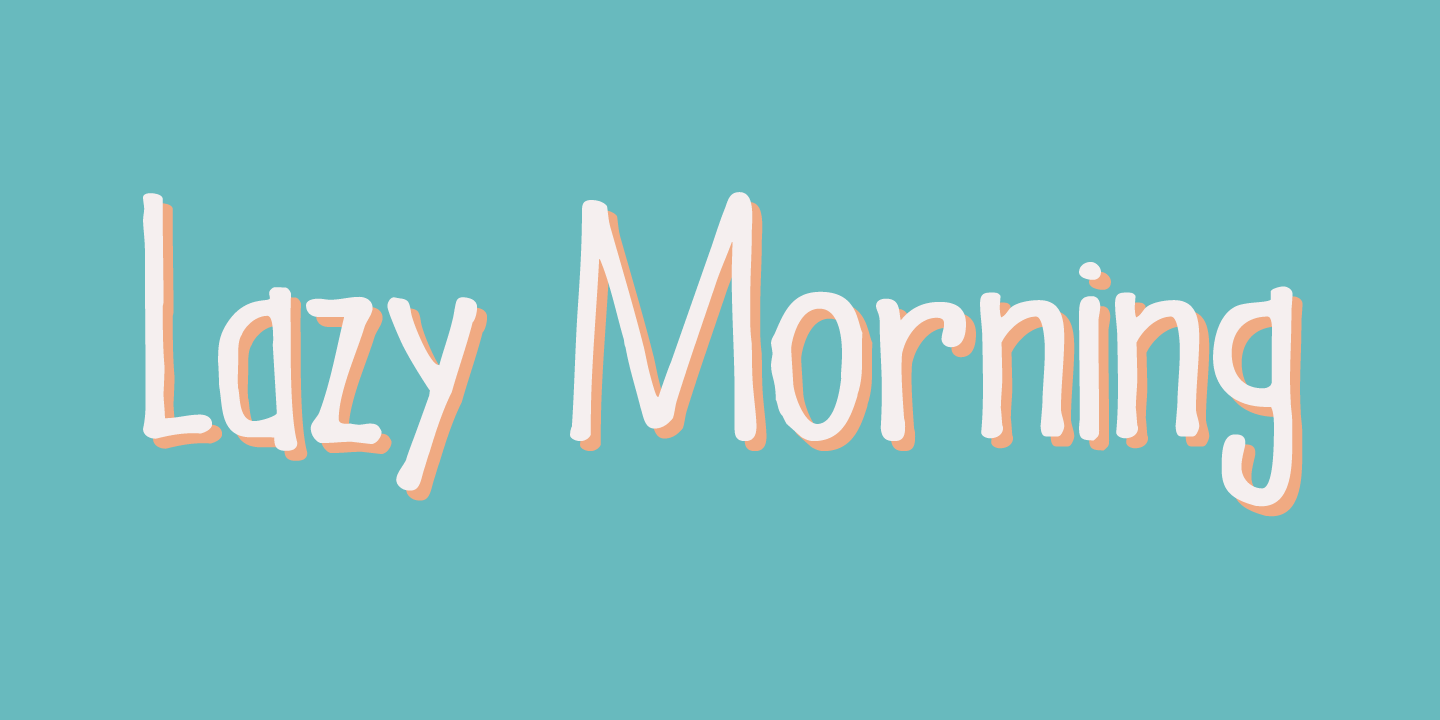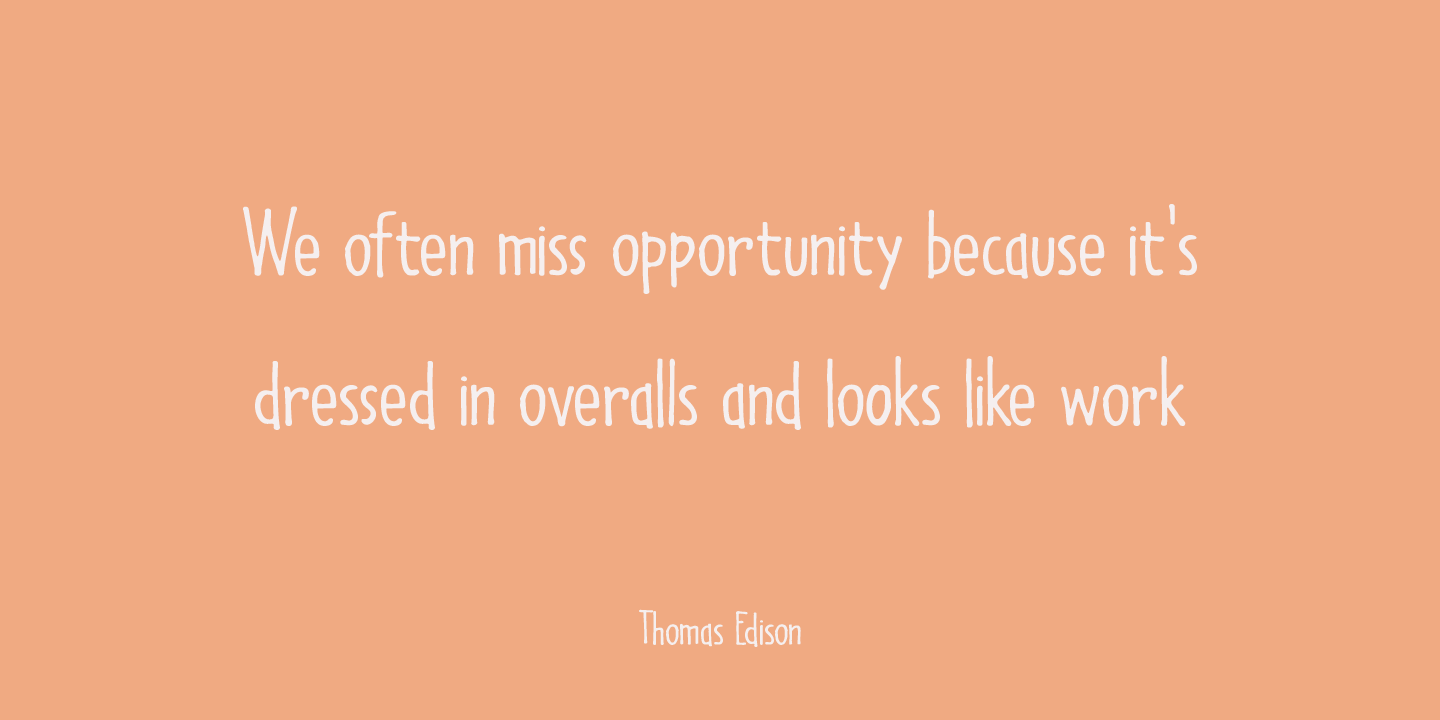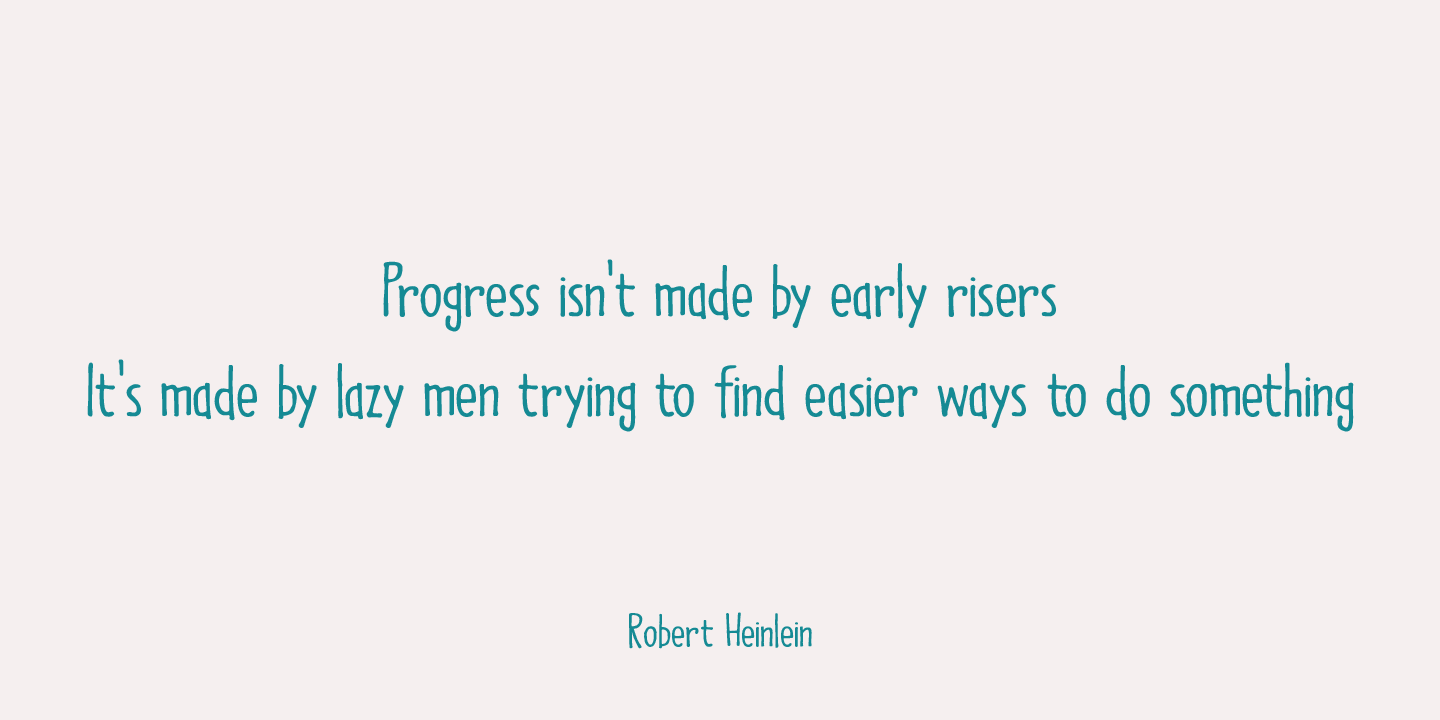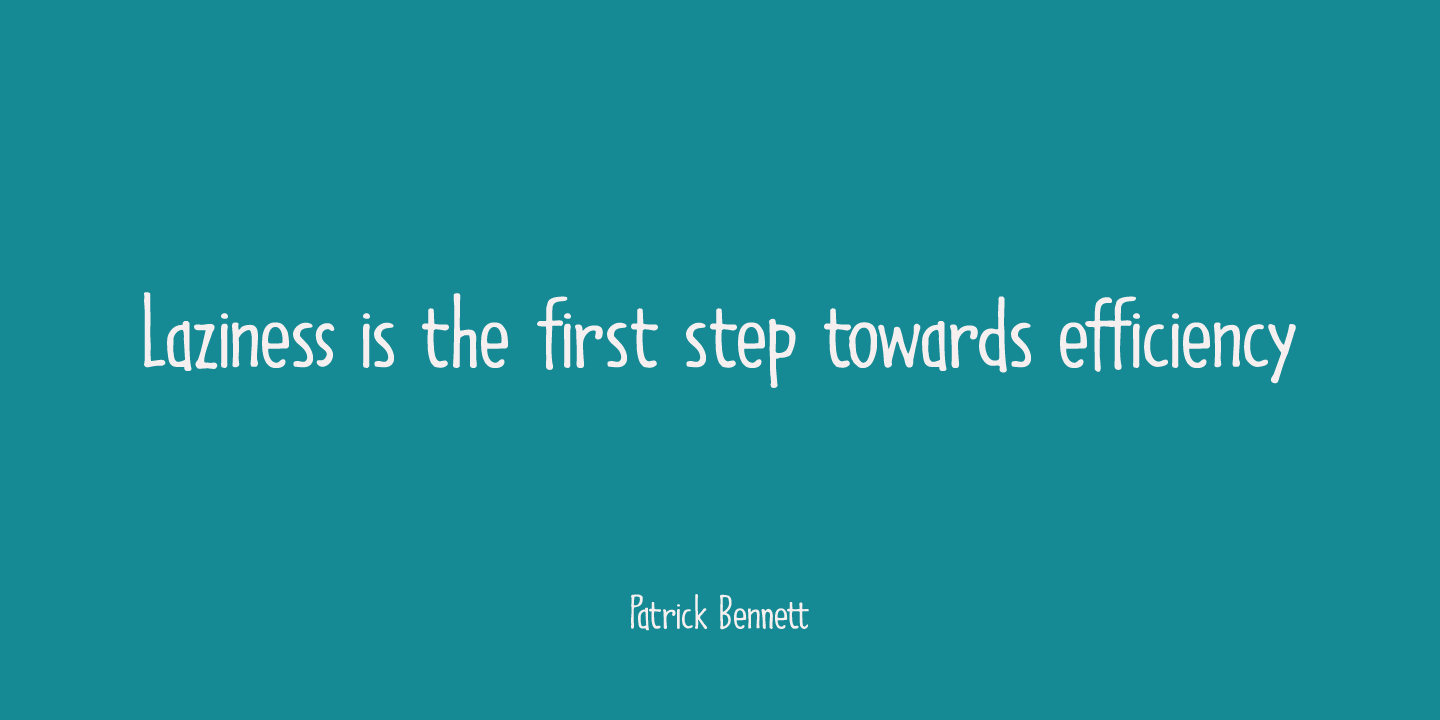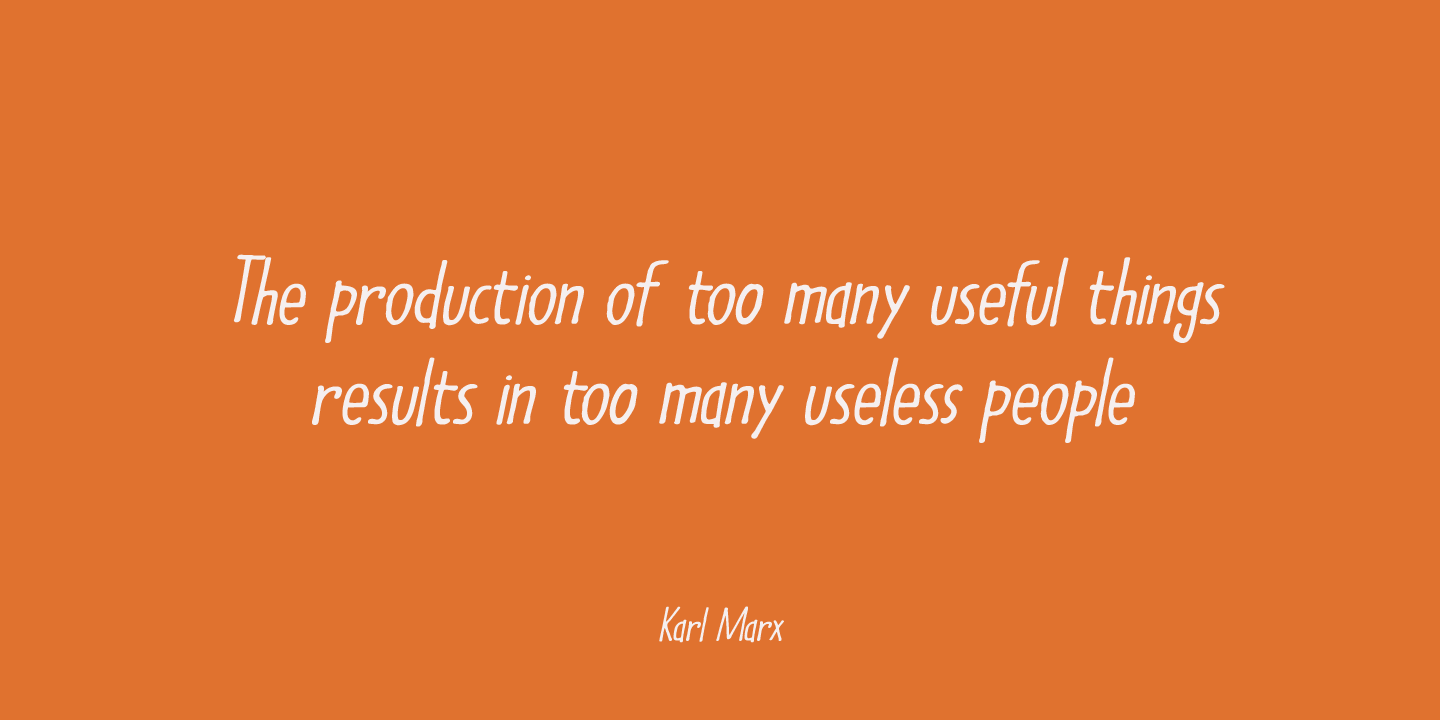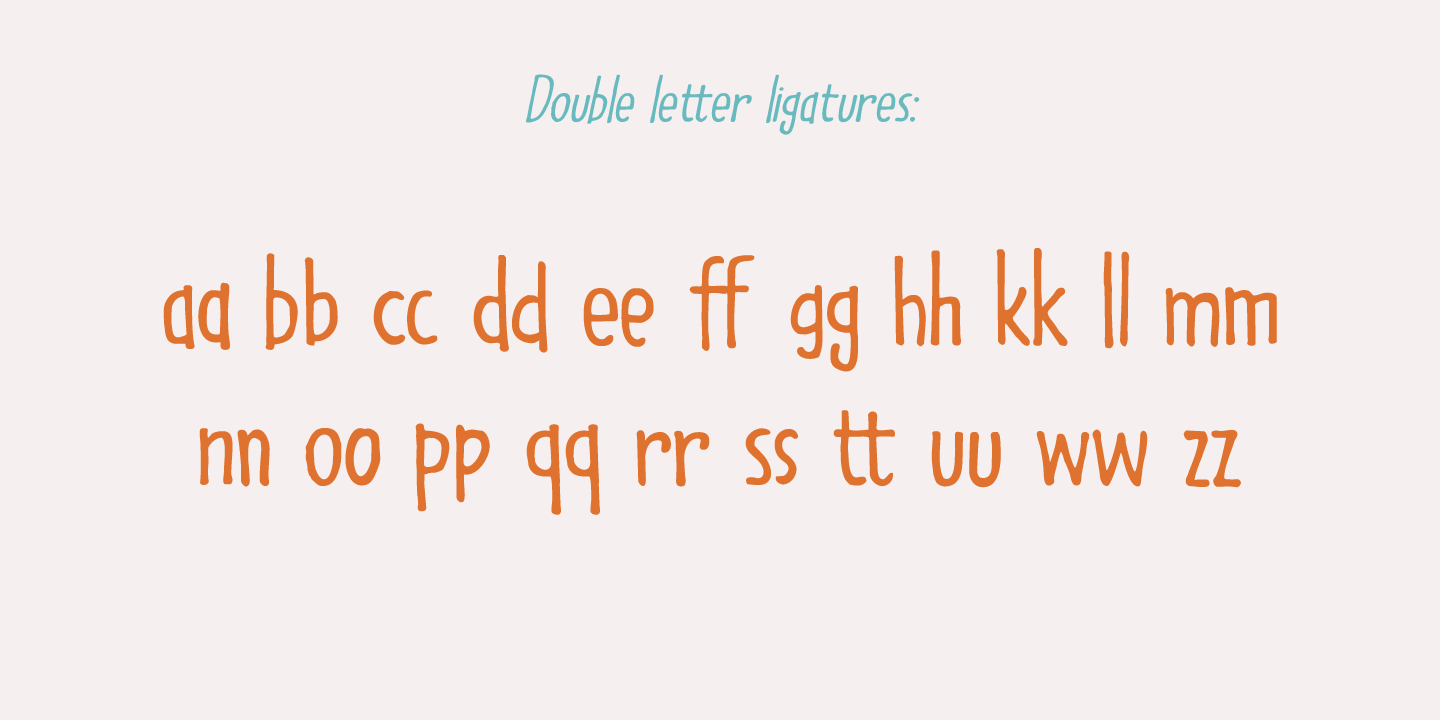
Lazy Morning
I can't remember when I had a true lazy morning.. I was a looong time ago, before I had children! Even now, when I?m down with the flu, I can't stay in bed for too long - it really seems like a waste of time!
Lazy Morning is a nice handwritten font. I made it with a Sharpie pen.
It comes with all diacritics and double letter ligatures for you to play with.
Lazy Morning by Hanoded